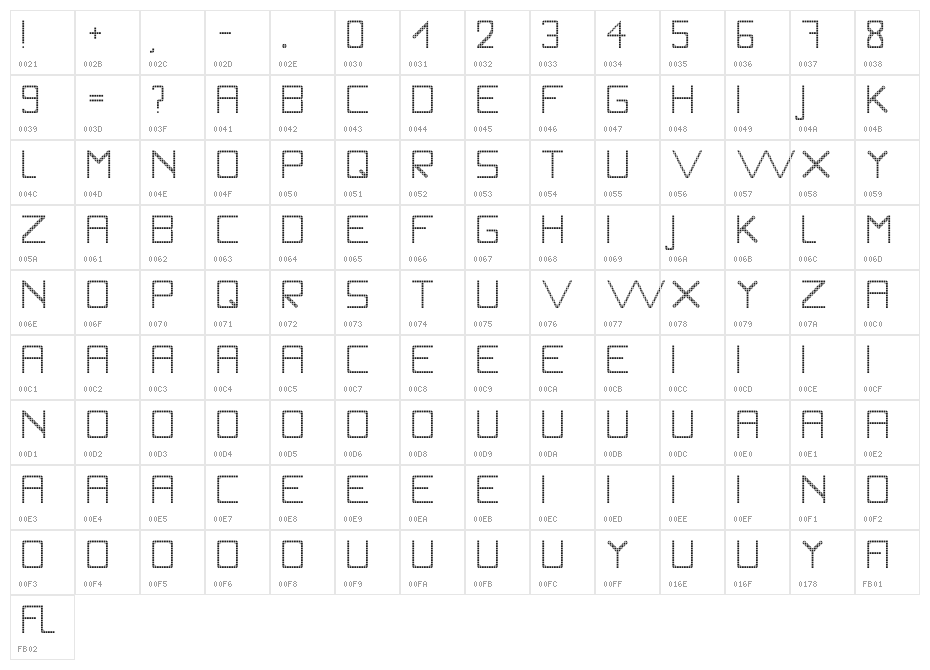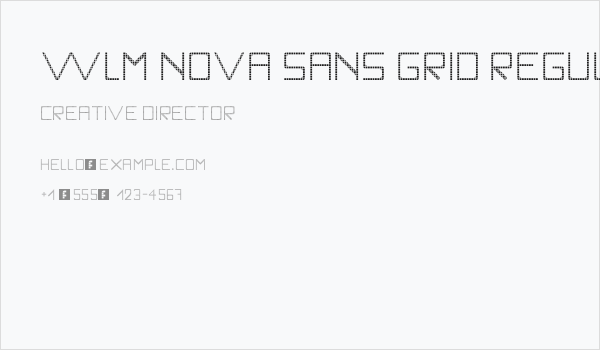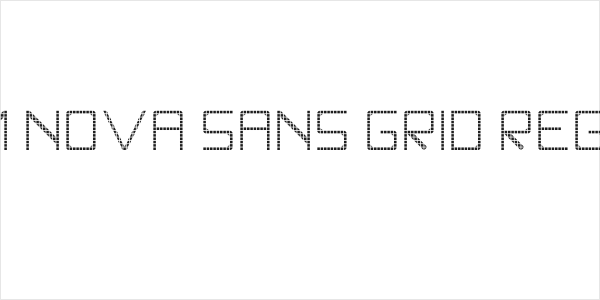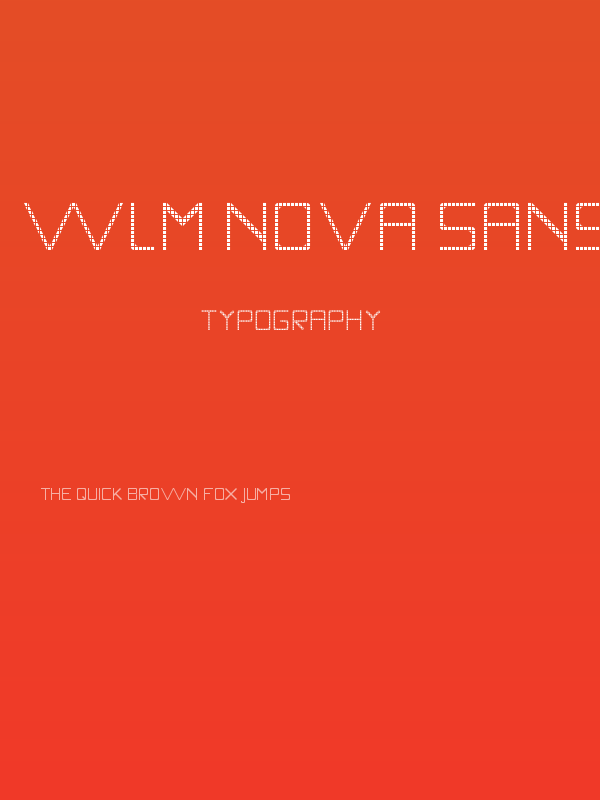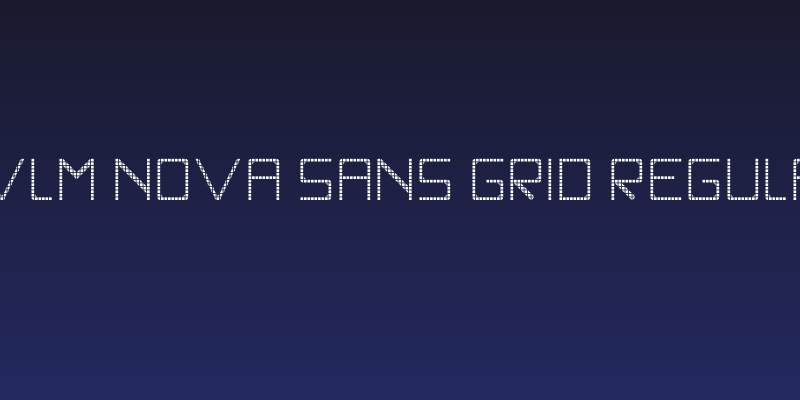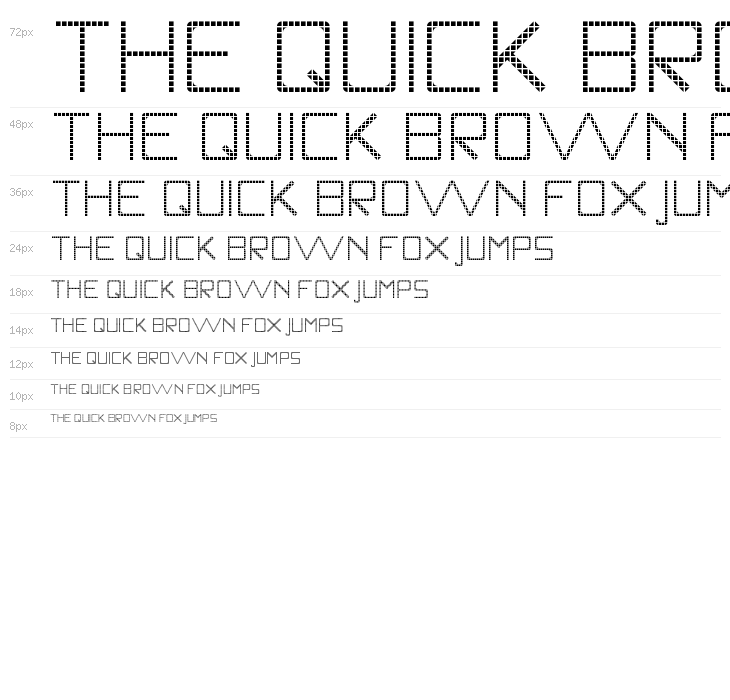
WLM Nova Sans Grid Regular Font
WLM Nova Sans Grid Regular Description
This font features a unique grid-based design, where each character is constructed from a series of small, evenly spaced squares. The geometric nature of the font gives it a modern and digital appearance, reminiscent of pixel art or digital displays. The uppercase and lowercase letters maintain a consistent height, contributing to a uniform and structured look. The numbers and special characters are designed with the same grid pattern, ensuring cohesiveness across all elements. This font's distinct style makes it stand out, offering a blend of retro digital aesthetics with contemporary design elements.
| Use Case | Logos, Headlines, Digital Displays |
| Proposed Projects | Ideal for digital displays, tech-themed designs, video game interfaces, and futuristic branding projects. |